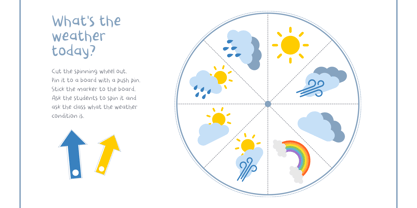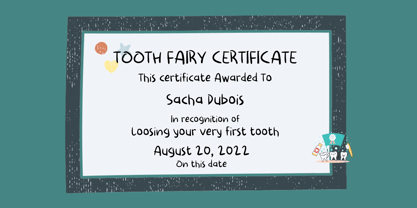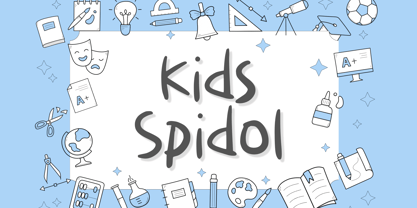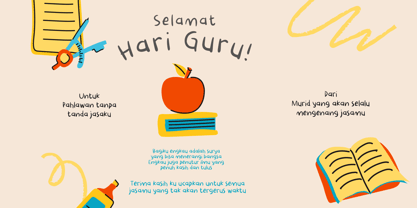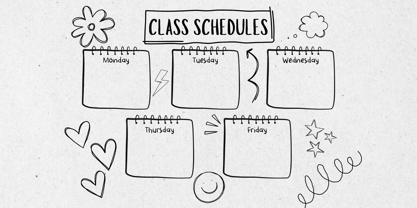
Kids Spidol
by Aisyah
The Kids Spidol Font Family was designed by Nur Aiysah Amalia and published by Aisyah. Kids Spidol contains 1 styles.
Experience the distinct charm of Kids Spidol font, the perfect blend of quirky and sophisticated. With its handcrafted style, resembling a sharp scribe, this font promises to add character and a unique touch to your various projects. Whether it’s enhancing the look of certificates, sprucing up school assignments, or adding a personalized touch to greeting cards, Kids Spidol font is an unsuspecting hero that transforms the mundane into something extraordinary. Delve into the captivating world of Kids Spidol and amplify the visual appeal of your creations.